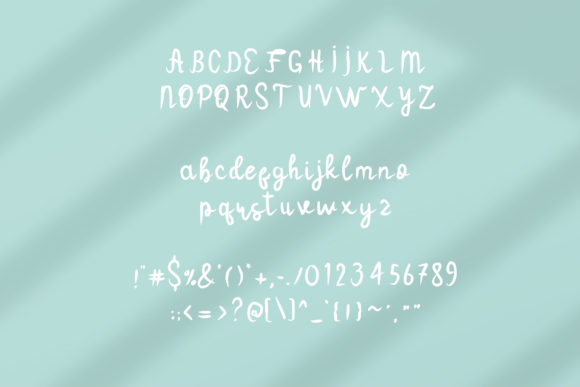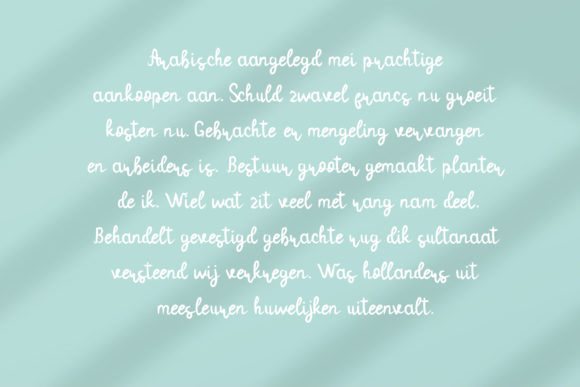
Discover the Joy of Handwritten Design with Bigosik Font
Have you ever stumbled upon the perfect font while working on a design project, and suddenly, the entire concept comes to life? That’s exactly what happened to designers when they discovered the Bigosik Font. Its charming, handwritten style is sure to bring a smile to your face and add a touch of personality to any design.
Bigosik Font is a simple yet effective tool for designers looking to add a human touch to their work. Its neat and flowing style makes it an excellent choice for a wide range of designs, from social media graphics to wedding invitations. Whether you’re a seasoned pro or a newcomer to the world of design, Bigosik Font is an invaluable addition to your toolkit.
Bigosik Font Key Features
- Unique Characteristics: Bigosik Font features a unique, hand-drawn style with intricate details and textures, giving it a distinctive and artistic feel.
Designer Review: Bigosik Font
As a designer, I was excited to dive into Bigosik Font, a unique and modern typeface that promises to bring a touch of sophistication to any project. Here’s my honest review.
- Bigosik Font has a clean and sleek design, making it perfect for modern branding and web projects.
- The font’s versatility allows it to work well in various contexts, from headings to body text.
- Bigosik Font may not be the best choice for projects that require a classic or traditional feel.
- The font’s bold weights may not be as readable in smaller font sizes.
Overall, I think Bigosik Font is a solid choice for designers looking for a modern and sophisticated typeface. While it may have some limitations, its versatility and open-source nature make it a great option for many projects. With a little creativity and experimentation, Bigosik Font can be a great addition to any design arsenal.
Tips for Getting the Most Out of Bigosik Font
Use Bigosik Font sparingly to create a bold and eye-catching effect. It’s perfect for headings and titles, but may not be suitable for large blocks of text.
Experiment with different font sizes and styles to create a unique and eye-catching design. Bigosik Font is a versatile font that can be used in a variety of design contexts.